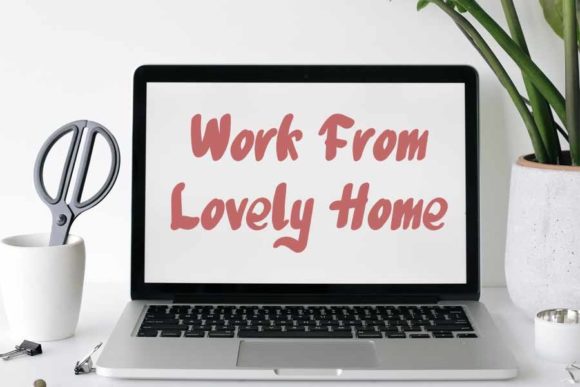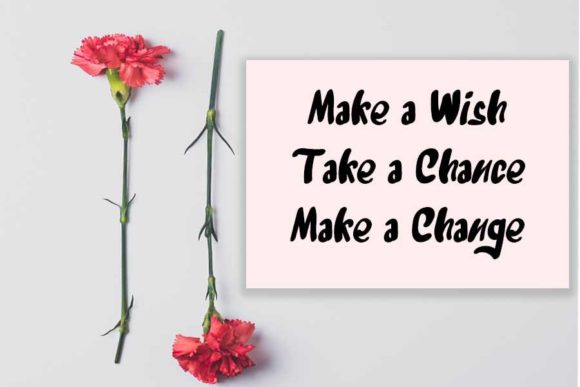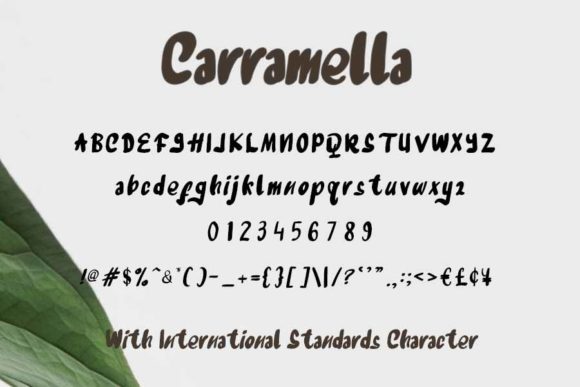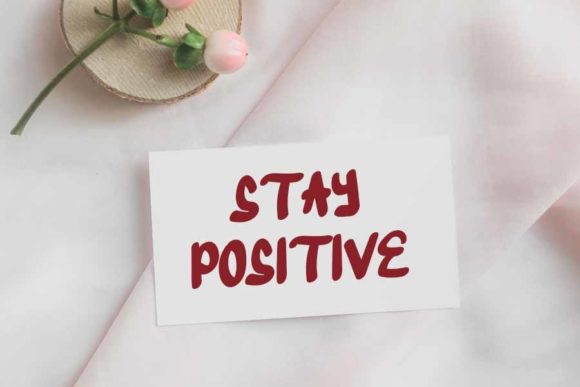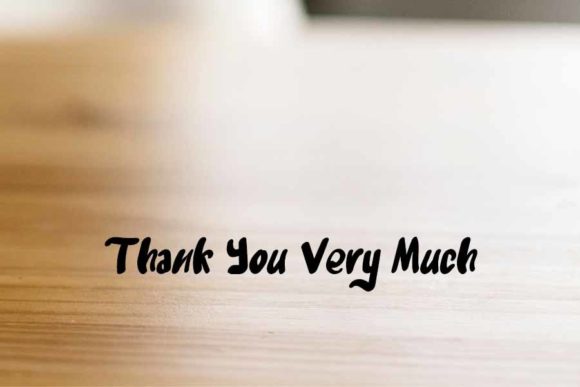
Discover the Cool and Trendy Carramella Font: Elevate Your Designs with Style
In the world of typography, fonts play a crucial role in making or breaking a design. A perfect font can instantly elevate your project, making it more engaging, readable, and visually appealing. If you’re a designer, craftsperson, or simply someone who loves playing with typography, you’re in for a treat. Say hello to Carramella, a cool and trendy display font that’s about to become your new go-to choice.
What is Carramella Font?
Carramella is a modern, stylish display font designed to make a statement. Its unique blend of elegance and playfulness makes it perfect for a wide range of projects, from formal events to casual social media posts. With its sleek lines, beautiful curves, and distinctive character, Carramella is sure to grab attention and leave a lasting impression.
Key Features of Carramella Font
- Cool and Trendy: Carramella boasts a fresh, contemporary look that’s perfect for designers and crafters who want to stay on top of the latest trends.
- Display Font: Designed specifically for display purposes, Carramella is ideal for headlines, titles, and short texts that need to make an impact.
- Versatile: Whether you’re working on a formal or casual project, Carramella adapts seamlessly to any style or theme.
- Easy to Read: Despite its stylish appearance, Carramella remains highly legible, ensuring your message gets across clearly.
Use Cases for Carramella Font
Carramella’s versatility makes it suitable for a variety of applications. Here are some ideas to get you started:
- Branding and Logos: Use Carramella to create a memorable brand identity that stands out from the crowd.
- Social Media Graphics: Add a touch of style to your social media posts, stories, and banners with Carramella’s trendy look.
- Event Invitations: Make your event invitations, flyers, and posters more engaging and sophisticated with Carramella.
- Packaging Design: Elevate your product packaging with Carramella’s modern and eye-catching typography.
- Web Design: Use Carramella to create stunning website headers, titles, and CTAs that capture visitors’ attention.
Why Choose Carramella Font?
With so many fonts available, why should you choose Carramella? Here are a few compelling reasons:
- Unique Style: Carramella offers a distinctive look that will set your designs apart from the rest.
- High-Quality Design: Crafted with precision and attention to detail, Carramella is a high-quality font that reflects professionalism.